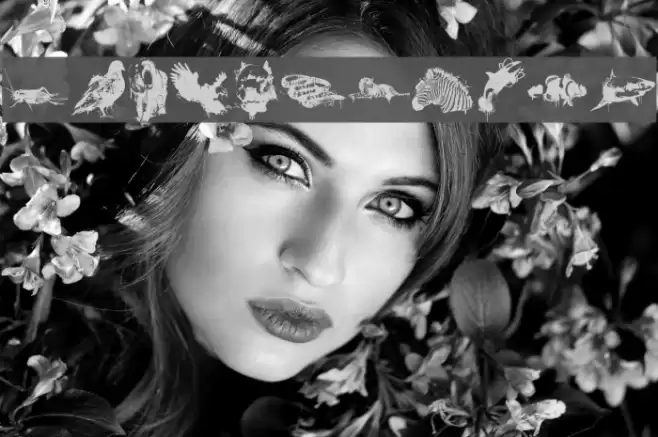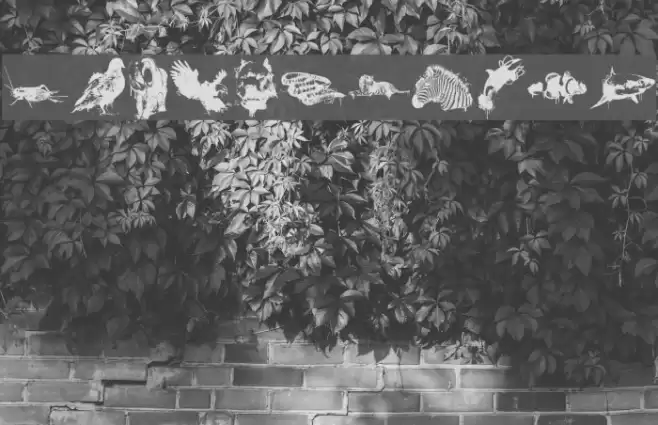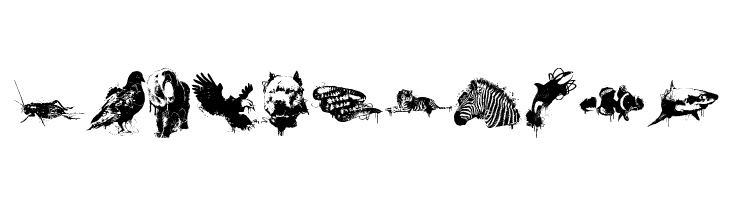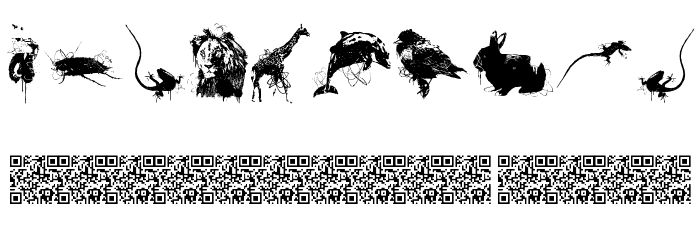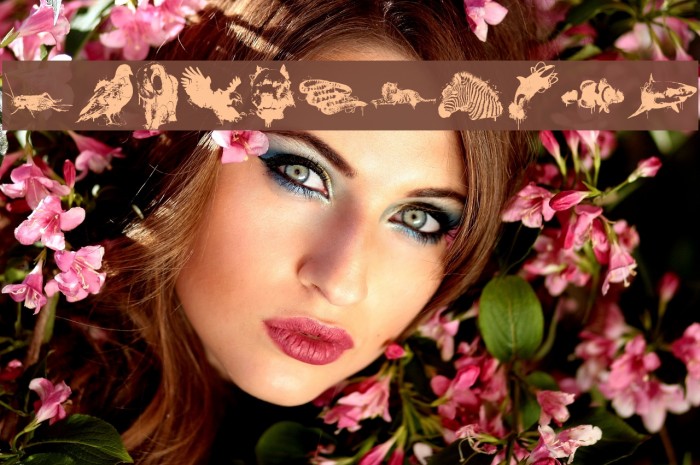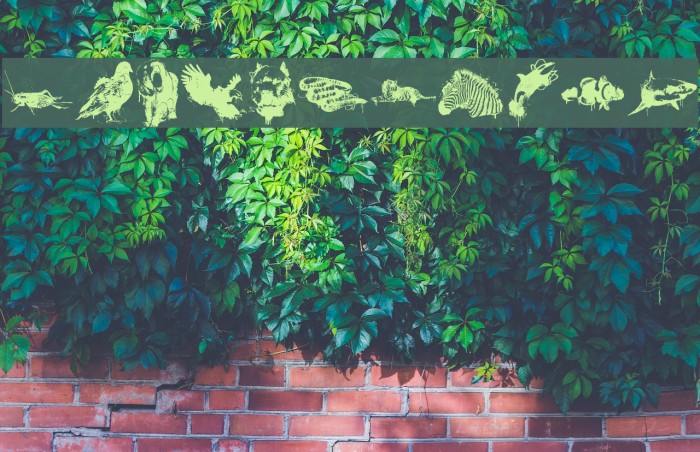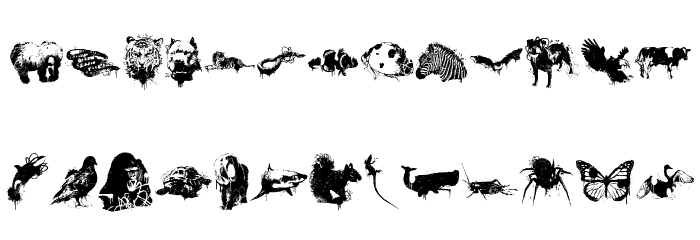
worldbeings Font
worldbeings Description
A decorative display font where each character is represented by a detailed black-and-white silhouette illustration of an animal, insect, or bird. The glyphs are highly pictorial, with each letter or number corresponding to a different species, making the font more illustrative than typographic. The symbols are bold and have high contrast, with intricate outlines and filled shapes.
Animal silhouette pictorial display font from Dingbats fonts.
- Proposed Projects: Children’s books, educational posters, animal-themed branding, creative headlines, decorative initials.
- Overall Style: Decorative, Illustrative, Playful
- Use Case: Logos, Headlines, Posters, Educational materials